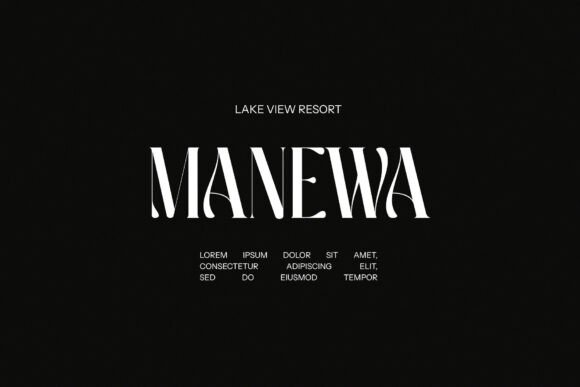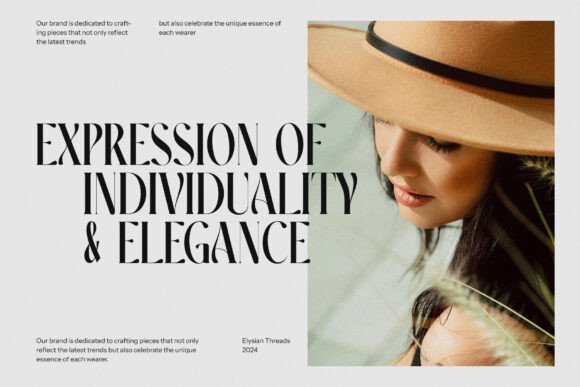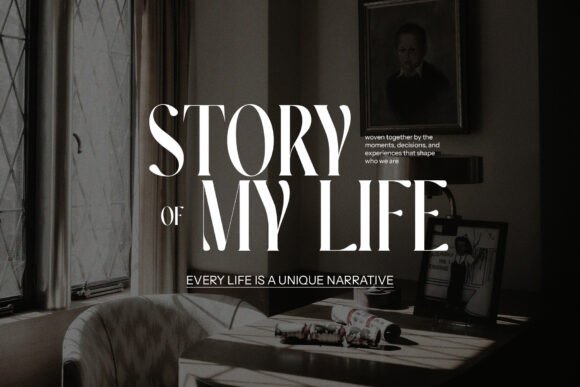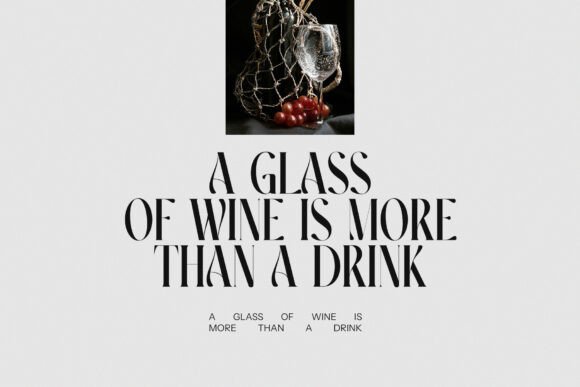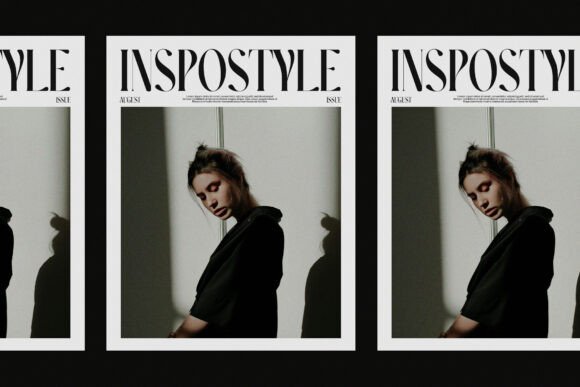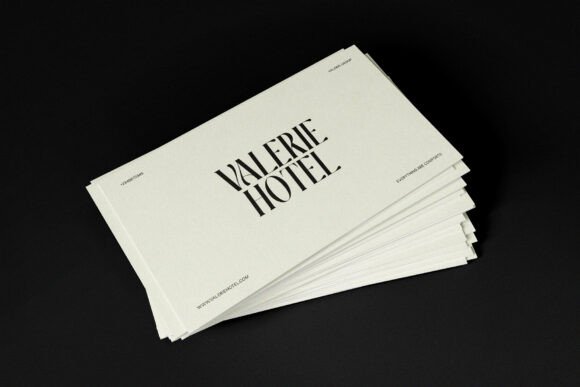
Introduction to Kagita Font
As a designer, there’s nothing quite like the thrill of bringing a creative project to life. You’ve poured your heart and soul into the concept, and now it’s time to choose the perfect font to tie everything together. That’s where the elegant Kagita Font comes in – a sophisticated serif font that adds a touch of class to any design.
With its smooth lines, graceful curves, and timeless feel, Kagita Font is the perfect choice for designers looking to elevate their work to the next level. Whether you’re creating a stunning invitation, a sleek logo, or a high-quality magazine, this versatile font is sure to make your text stand out in a crowd. And the best part? You can download it for free, making it an invaluable resource for any design project.
Key Features of Kagita Font
- Unique, hand-drawn style with a high level of detail, making it perfect for creative projects that require a personal touch.
- High-quality design resource, ideal for use in logos, branding materials, and other visual identity elements.
Honest Review: Kagita Font
I recently stumbled upon the Kagita Font, and I must say it’s been a game-changer for my creative projects. The font is a high-quality design resource that I can use to give my projects a unique touch.
The Kagita Font has a transparent background, which is a great feature for designers who want to create visually appealing graphics. The font is also free to download, making it an excellent choice for designers on a budget.
- High-quality design that stands out in creative projects
- Transparent background for easy editing and customization
Overall, I’m impressed with the Kagita Font, and I would highly recommend it to designers looking for a high-quality, free design resource. With its unique design and transparent background, it’s a great choice for creative projects.
Tips for Getting the Most Out of Kagita Font
To get the most out of the Kagita Font, use it with a transparent background to create a sleek and modern look. You can also experiment with different font sizes and styles to add visual interest to your design.
Common Use Cases for Kagita Font
The Kagita Font is perfect for creative projects such as branding, logos, and graphics. It’s also great for use in social media posts, presentations, and documents where a unique and stylish font is needed.